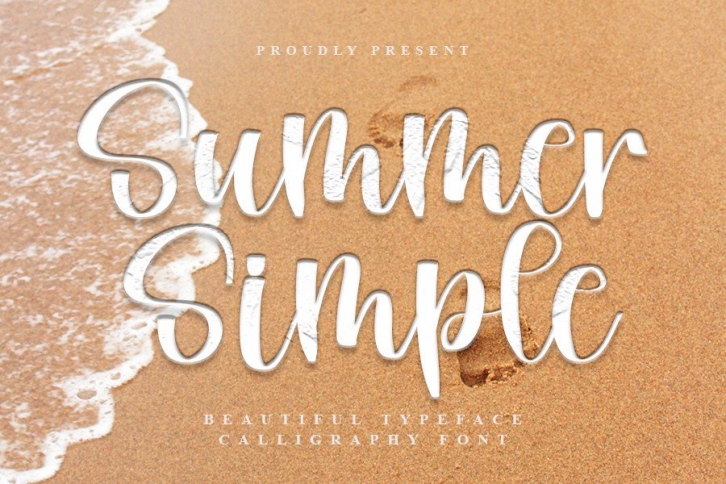
Summer Simple is a beautiful and smooth script font, that exudes elegance and class. This font was particularly crafted for those who need a beautiful and refreshing look to their designs.